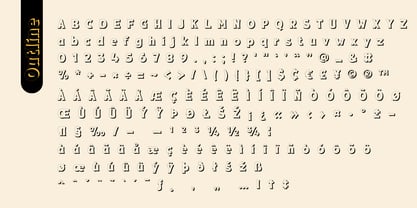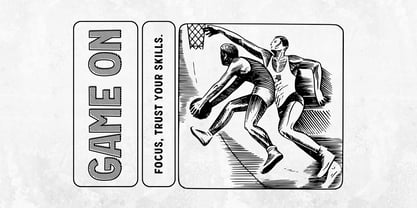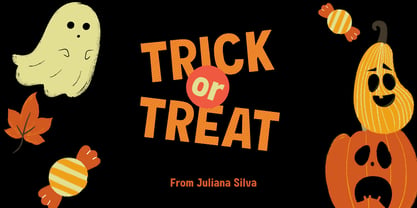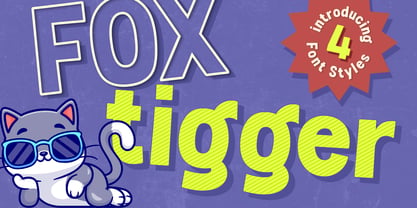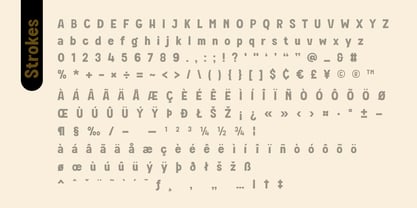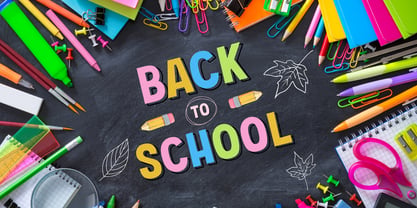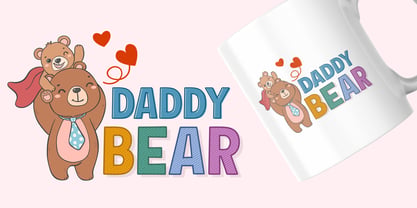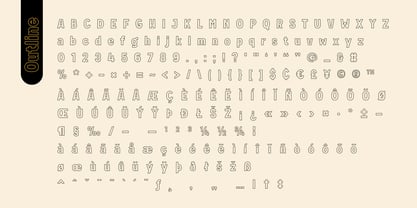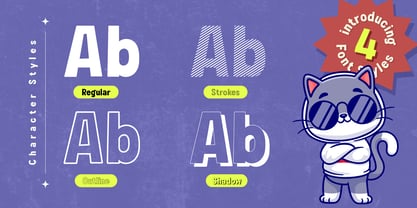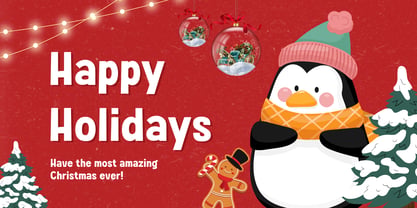
Fox Tigger
Fox Tigger is a playful and bold display font family designed to bring energy and fun into your creative projects. With 4 unique styles—Regular, Strokes, Outline, and Shadow, while the variation of styles makes it easy to mix and match for dynamic typography. Whether you want a clean solid look, a textured playful touch, or a stylish outlined effect, Fox Tigger has it all.
What’s Included (4 Font Styles):
Regular – Bold, clean, and easy to read. Perfect for titles and main text that needs impact.
Strokes – Playful with a lined effect, great for adding texture and creative vibes.
Outline – Stylish hollow letters, ideal for layering or combining with other styles.
Shadow – Adds depth and a 3D effect, making your text stand out.
Perfect For:
Kids’ projects & storybooks
Comic-style lettering & cartoon graphics
Fun posters & playful packaging
Game graphics & creative branding
Eye-catching social media posts